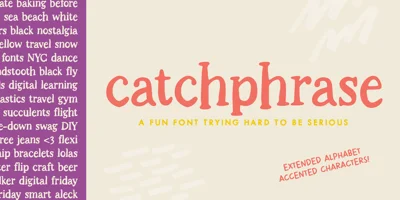
Catchphrase Font
Catchphrase Font is perfect for advertising agencies, memorable slogan designs, viral marketing campaigns, social media content, motivational posters, brand taglines, entertainment promotions, comedy show materials, and any project requiring typography with instant memorability and attention-grabbing appeal.
What makes Catchphrase Font exciting is its memorable impact that captures the essence of sticky messaging and viral communication with bold letterforms designed to lodge themselves permanently in viewers' minds and create instant brand recognition. This powerful typeface embodies the psychology of effective advertising with dynamic construction that demands attention while ensuring maximum retention and recall value. The font's memorable character and commercial sophistication make it perfect for projects focused on creating unforgettable brand messages, viral content, and communication that sticks with audiences long after first exposure.
The Catchphrase Font family includes regular and bold weights, featuring complete uppercase and lowercase alphabets, numerals, punctuation marks, and attention-grabbing design elements. The font maintains consistent memorable impact throughout all weights while ensuring excellent readability for both headline-grabbing slogans and persuasive text applications in advertising and marketing contexts.
Whether you're designing for advertising campaigns, creating viral social media content, or developing brand messaging with memorable aesthetics, Catchphrase Font delivers unmatched memorability and commercial impact to your projects. This exceptional typeface transforms ordinary text into unforgettable expressions of brand personality that capture attention, create lasting impressions, and drive engagement through powerful visual communication. The font's memorable character makes it ideal for advertising agencies, entertainment companies, and viral marketing specialists. Download this remarkable font today and bring the sticky power of memorable messaging to your design projects with authentic commercial sophistication and catchphrase-level memorability.